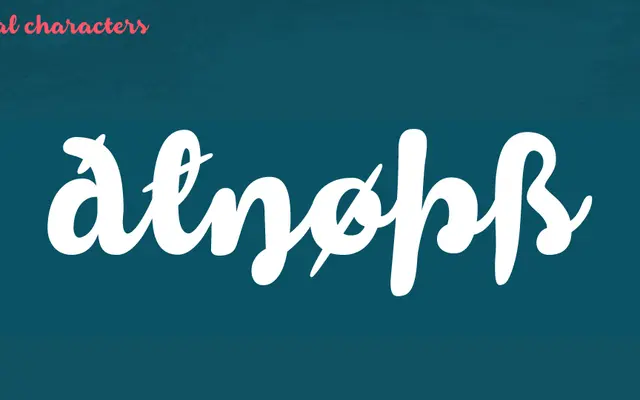
Armonioso
Zetafonts · Francesco Canovaro · 2014
scriptbrush script
A single-weight brush script by Francesco Canovaro with a soft, domestic hand-lettered quality.
Released in 2014, this brush script carries a gentle, informal character suited to packaging, greeting design and editorial work with a personal tone. The glyph set covers 418 characters across 202 languages with broad Latin diacritic support. Its soft stroke modulation keeps it approachable without slipping into the overwrought expressiveness of many display brushes.
Described explicitly as a script typeface with a soft brush quality, placing it firmly in the brush script subcategory.